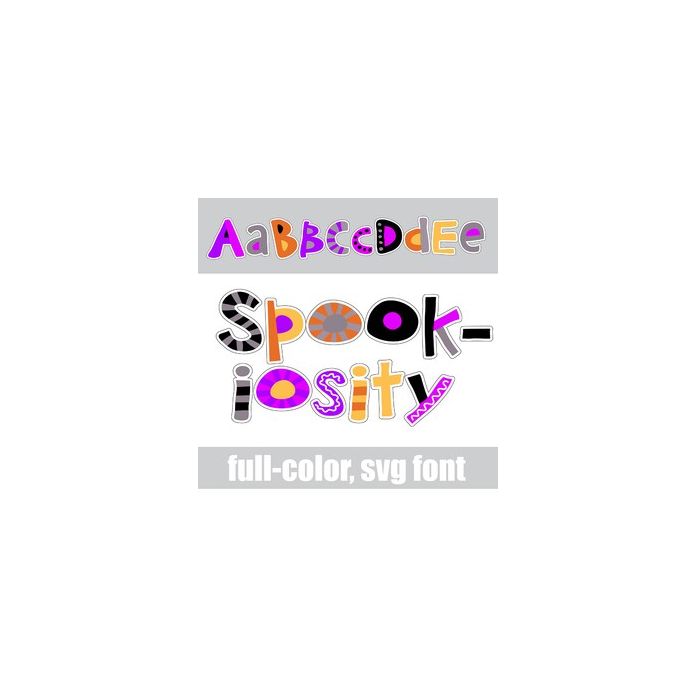
This fun font filled with mixed patterns has a Halloween color palette. There is an alt case w/ additional colors you can access through your system or Silhouette's glyph map.